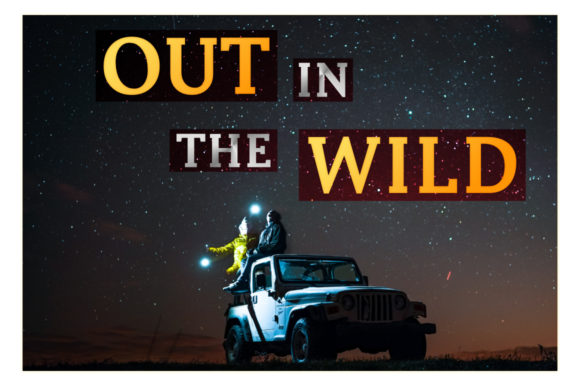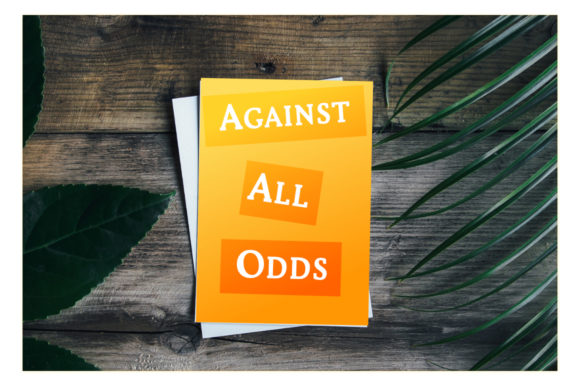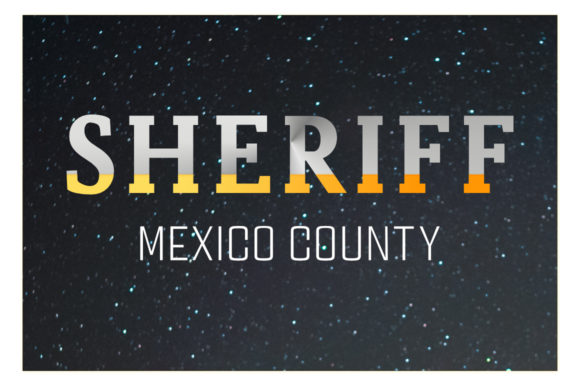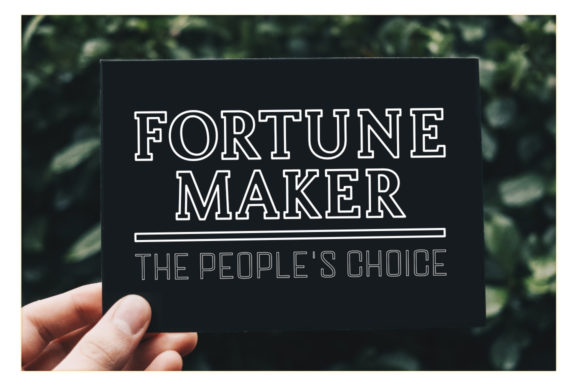
Introducing the Fortune Maker Font: Elevate Your Designs with Versatility and Style
In the world of design, fonts play a pivotal role in conveying messages, evoking emotions, and creating lasting impressions. For designers, crafters, and anyone looking to make their mark, the right font can be a game-changer. This is where the Fortune Maker Font comes into play—a very versatile serif font designed to meet the diverse needs of creatives. Whether you’re crafting logos, developing branding materials, creating advertisements, or working on any project that demands a touch of elegance and professionalism, the Fortune Maker Font is an excellent choice.
One of the standout features of the Fortune Maker Font is its versatility. This font isn’t just one-dimensional; it comes in both bold and italic versions, offering you a range of options to suit various design requirements. The bold version of the font is perfect for making statements, grabbing attention, and adding emphasis, while the italic version adds a touch of elegance, dynamism, and flair to your designs.
The applications for the Fortune Maker Font are vast and varied. Here are some of the areas where this font truly shines:
- Logos and Branding: A logo is often the first point of contact between a brand and its audience. The Fortune Maker Font, with its bold and italic versions, provides the perfect combination to create memorable and impactful logos. Its serif design adds a touch of tradition and reliability, making it ideal for brands looking to establish a strong and trustworthy image.
- Advertising: In advertising, the goal is to capture attention and convey your message effectively. The bold version of the Fortune Maker Font is particularly effective in this context, standing out in any advertisement and ensuring your message doesn’t go unnoticed.
- Packaging: For crafters and businesses looking to create unique packaging, the Fortune Maker Font offers a stylish and professional solution. Its versatility means it can be adapted to suit various product types and brand identities.
- Digital Media: Whether you’re creating social media graphics, website headers, or email newsletters, the Fortune Maker Font can elevate your digital content. Its clear and readable design ensures your message is communicated effectively across all platforms.
Why Choose the Fortune Maker Font?
With so many fonts available, why should the Fortune Maker Font be on your radar? Here are a few compelling reasons:
- Unique yet Readable: The Fortune Maker Font strikes a perfect balance between uniqueness and readability. Its serif design makes it easy to read, even at smaller sizes, while its distinctive style ensures your designs stand out.
- Time-Saving: Having both bold and italic versions at your disposal means you can experiment with different looks without having to search for additional fonts. This not only saves time but also streamlines your design process.